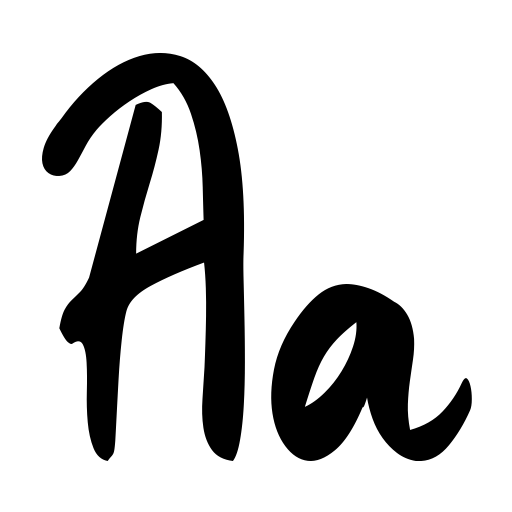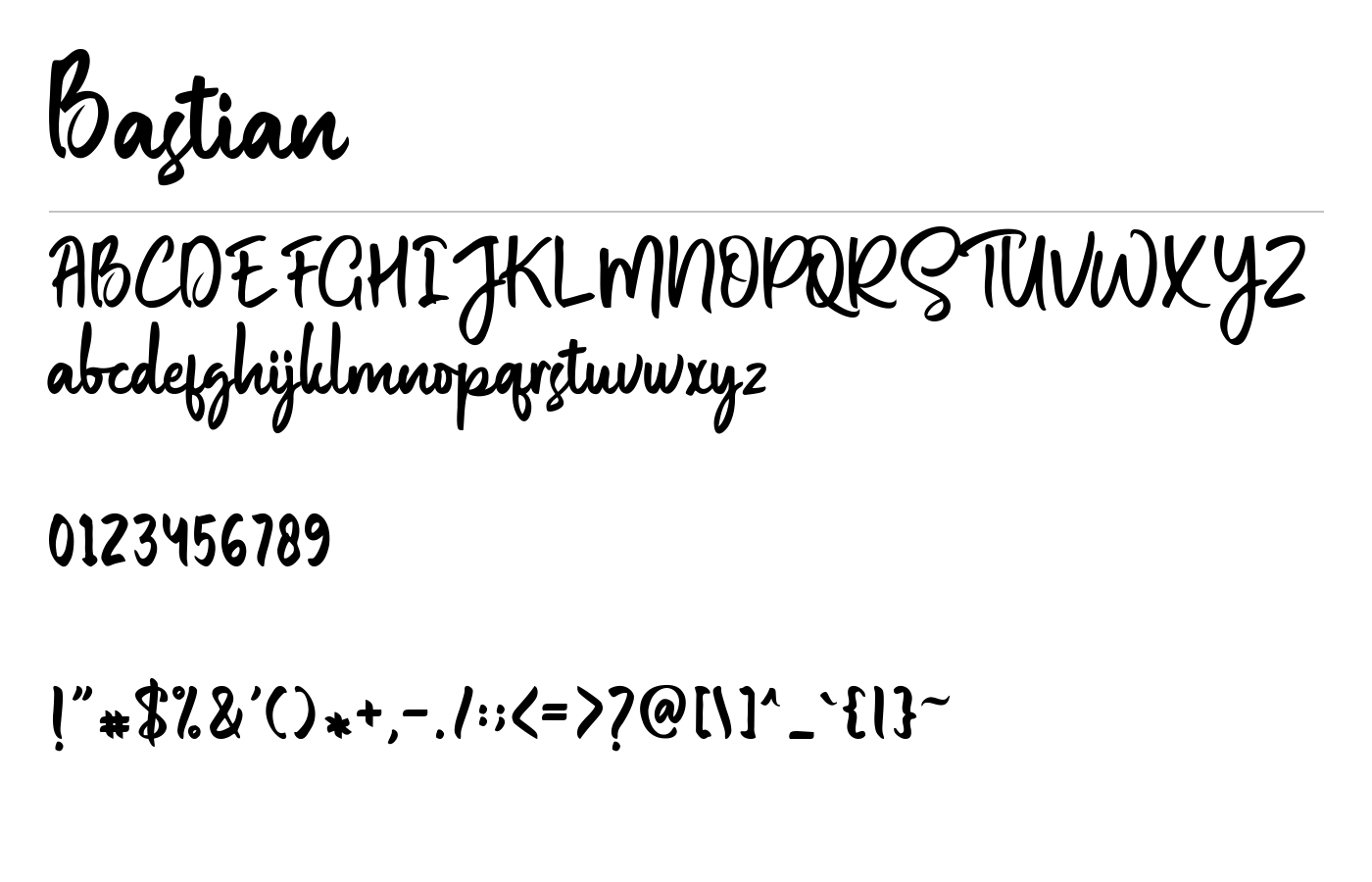
Bastian is a lively, handwritten script font with a bold yet playful character, featuring smooth, flowing strokes and a casual feel. Its upright, rounded letterforms and moderate contrast make it ideal for adding a friendly and approachable touch to branding, invitations, and creative projects where a personal, informal style is desired. This font works well in headlines and display uses, lending warmth and charm to any design.
Bastian Font
About Bastian Font